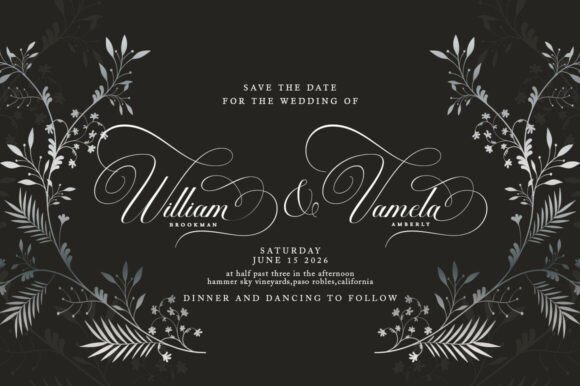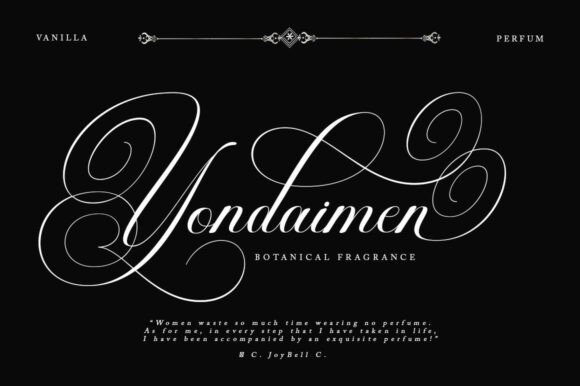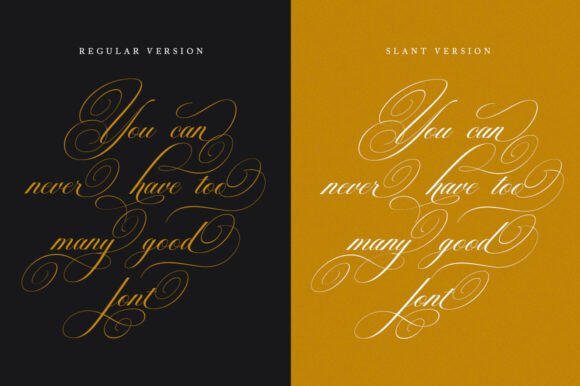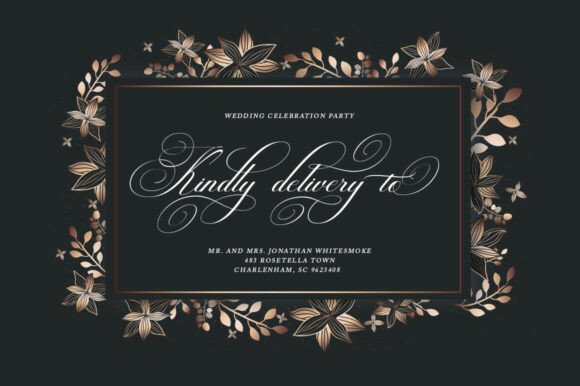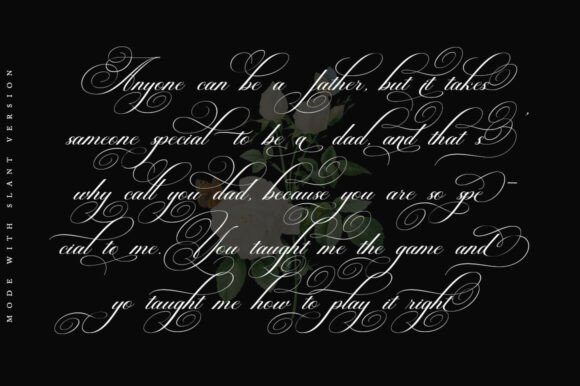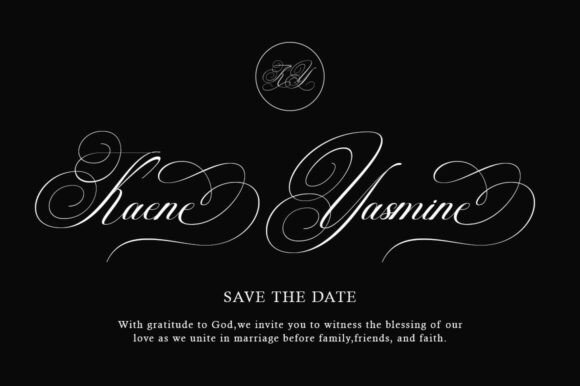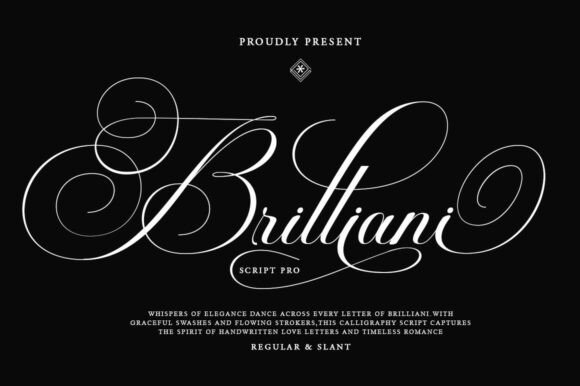
Introducing Brilliani Script Pro Font: Elevate Your Designs with Elegance and Sophistication
In the world of typography, a font can make or break a design. For designers and crafters seeking to add a touch of elegance and sophistication to their work, Brilliani Script Pro Font is an exceptional choice. This stunning script font combines classic decorative elements with a modern twist, offering a beautiful and versatile typeface for a wide range of applications.
The Beauty of Brilliani Script Pro
Brilliani Pro is a meticulously designed script font that boasts changing characters, adding a unique flair to any design. Its classic copper script style has been reimagined with a modern touch, resulting in a typeface that exudes stylish elegance. The font’s high level of detail ensures that it is not only visually appealing but also smooth, clean, and easy to read.
One of the standout features of Brilliani Pro is its feminine, sensual, and glamorous aesthetic. The font’s flowing lines and connections create a sense of movement and fluidity, making it perfect for designs that require a touch of sophistication. Whether you’re working on a logo, invitation, or packaging, Brilliani Pro is sure to impress.
Brilliani Pro’s classic style makes it an excellent choice for a variety of formal applications, including:
• Invitations and greeting cards
• Labels and packaging
• Restaurant menus and flyers
• Logos and branding materials
• Fashion and beauty designs
• Stationery and notebooks
• Novels, magazines, and books
• Wedding cards and stationery
Its versatility extends beyond traditional applications, making it an excellent choice for digital designs, such as social media graphics, website headers, and email marketing campaigns.
Brilliani Pro Script is encoded with Unicode PUA (Private Use Area), allowing full access to all additional characters without the need for special design software. This makes it easy for users to access and utilize the font’s extensive character set.
Why Choose Brilliani Script Pro?
With Brilliani Script Pro, you can:
• Add a touch of elegance and sophistication to your designs
• Enhance your brand’s visual identity with a unique and stylish typeface
• Streamline your design process with a versatile font suitable for various applications
• Enjoy easy access to a wide range of characters and glyphs
In conclusion, Brilliani Script Pro Font is an exceptional choice for designers and crafters seeking to elevate their designs with a touch of elegance and sophistication. Its classic yet modern aesthetic, versatility, and technical features make it an excellent addition to any design arsenal.
Whether you’re a seasoned designer or a crafty entrepreneur, Brilliani Pro is sure to inspire your creativity and help you create stunning designs that leave a lasting impression.